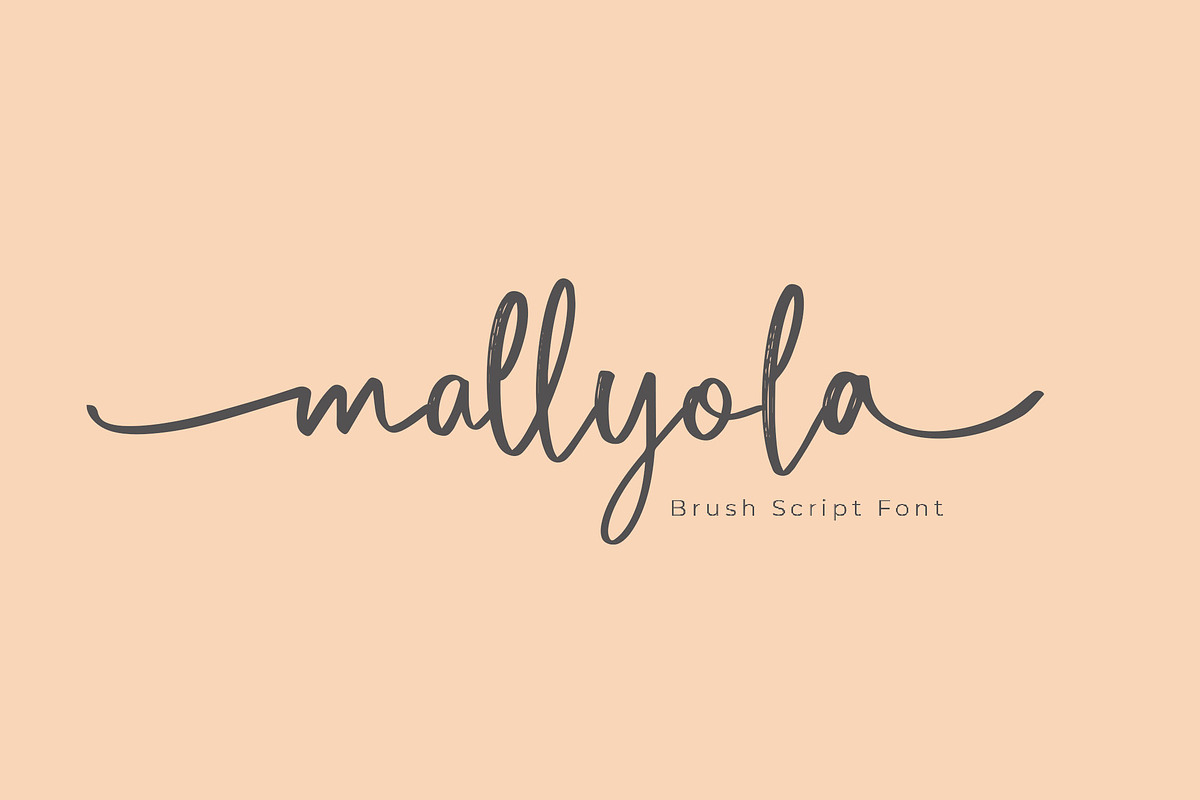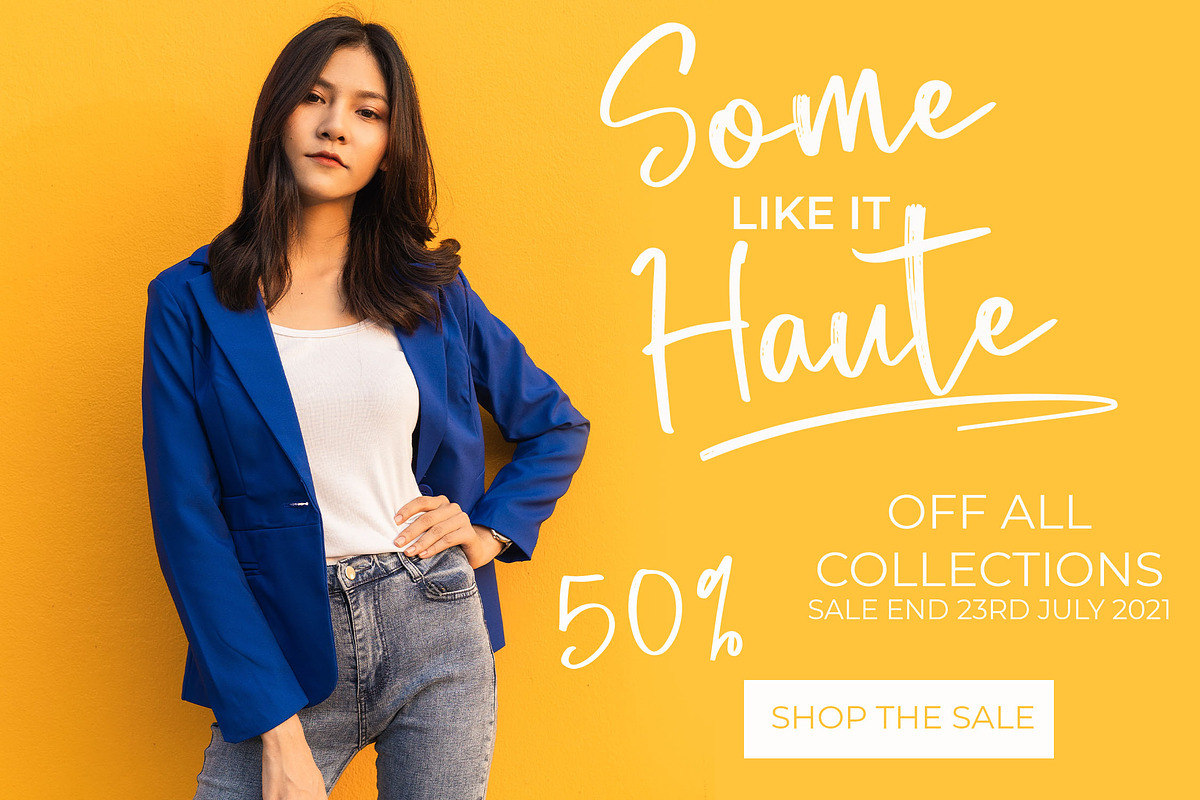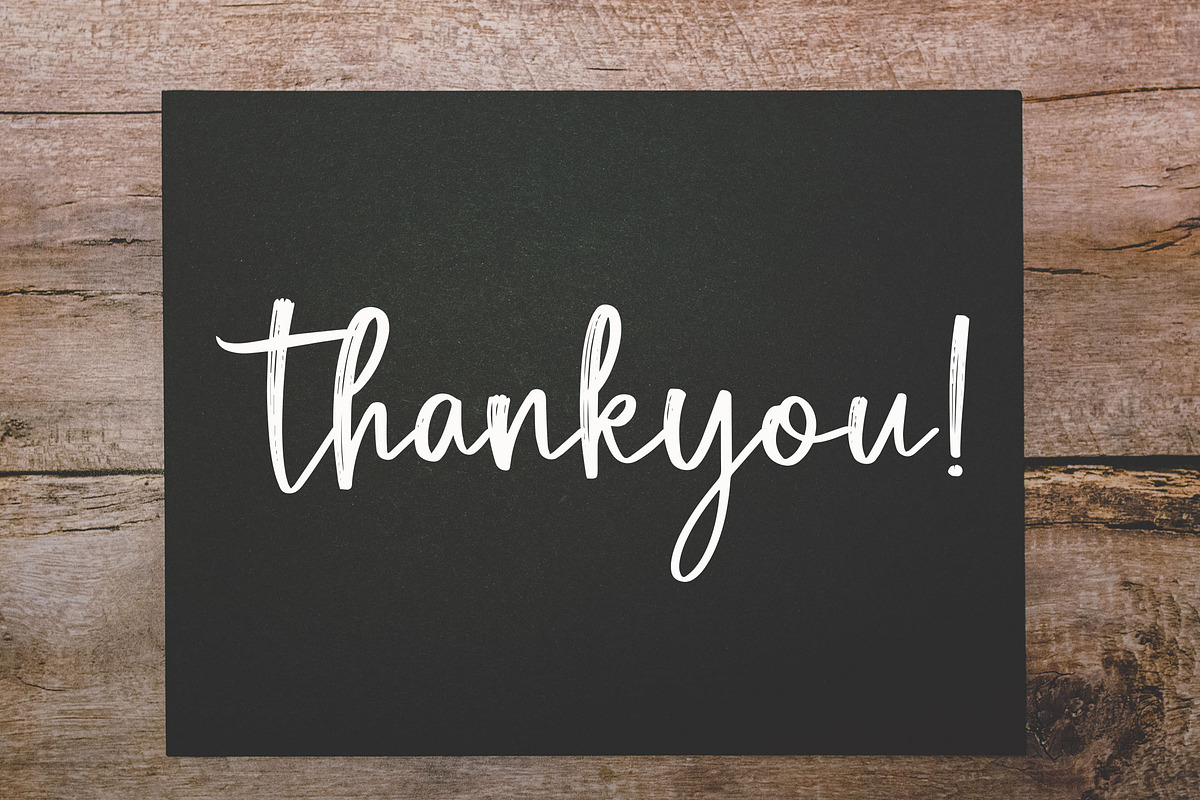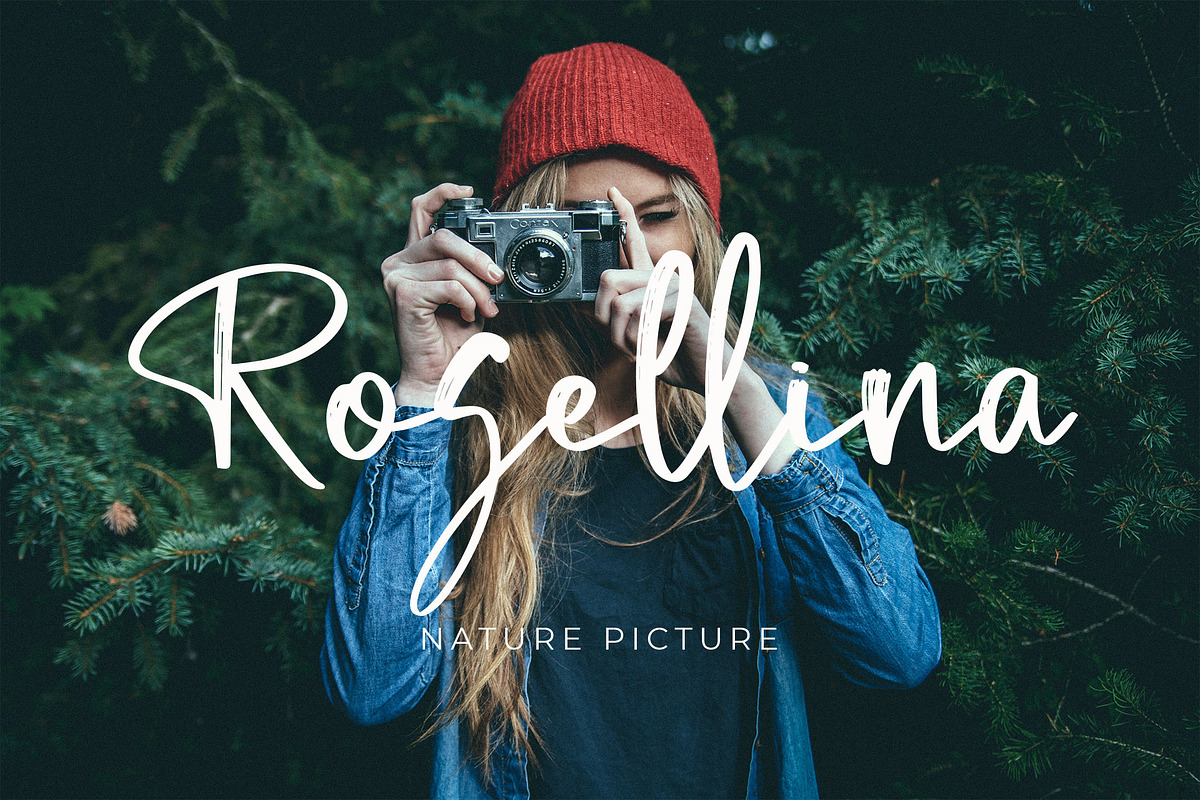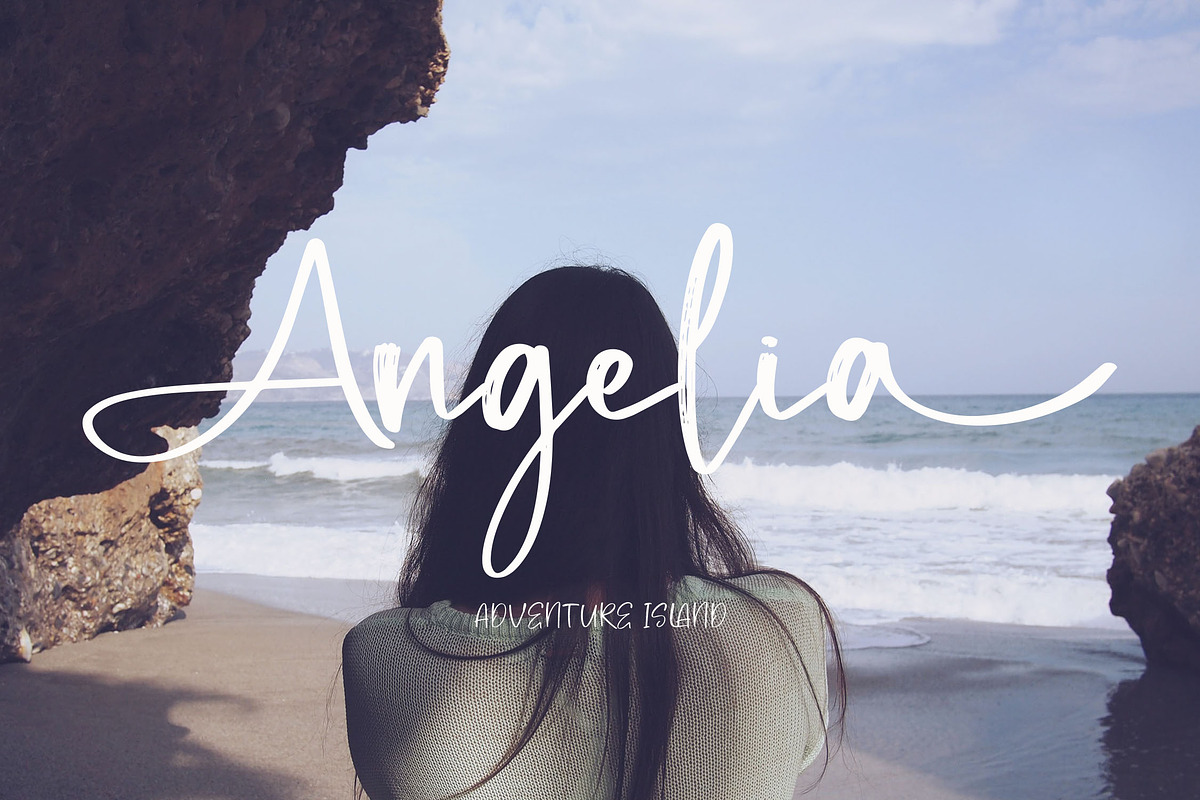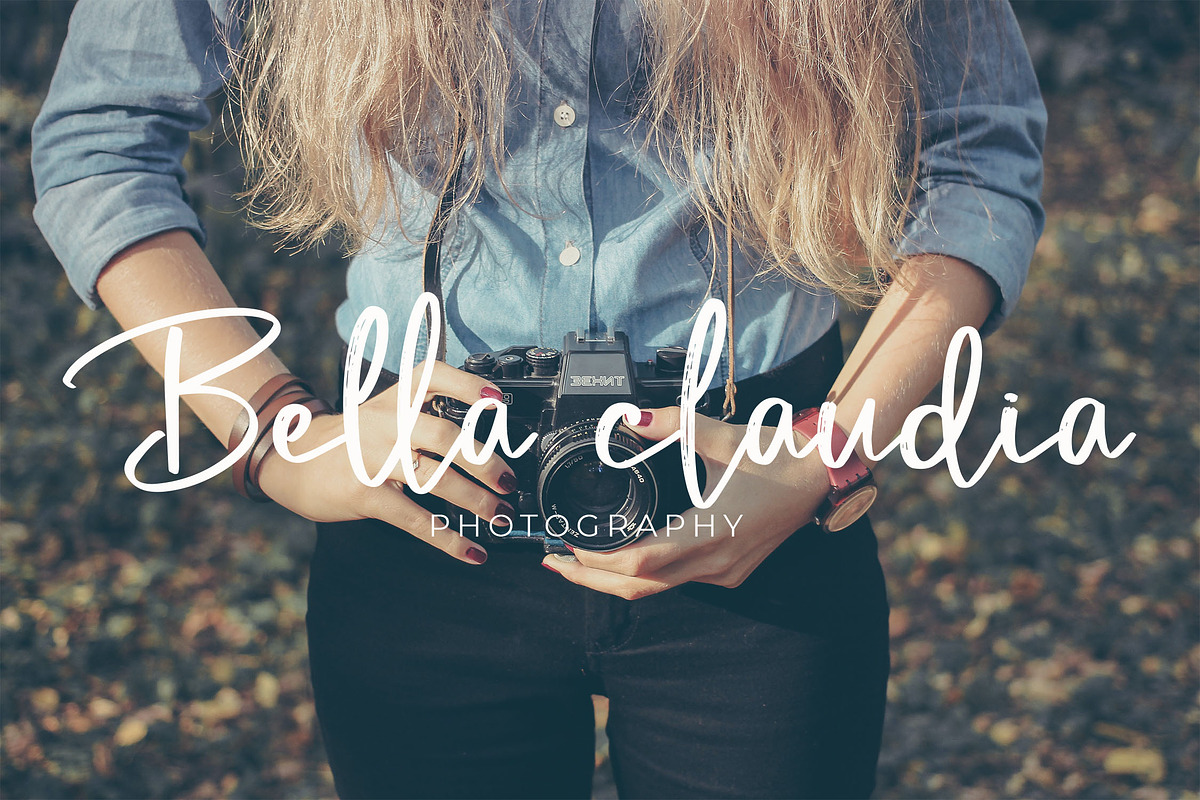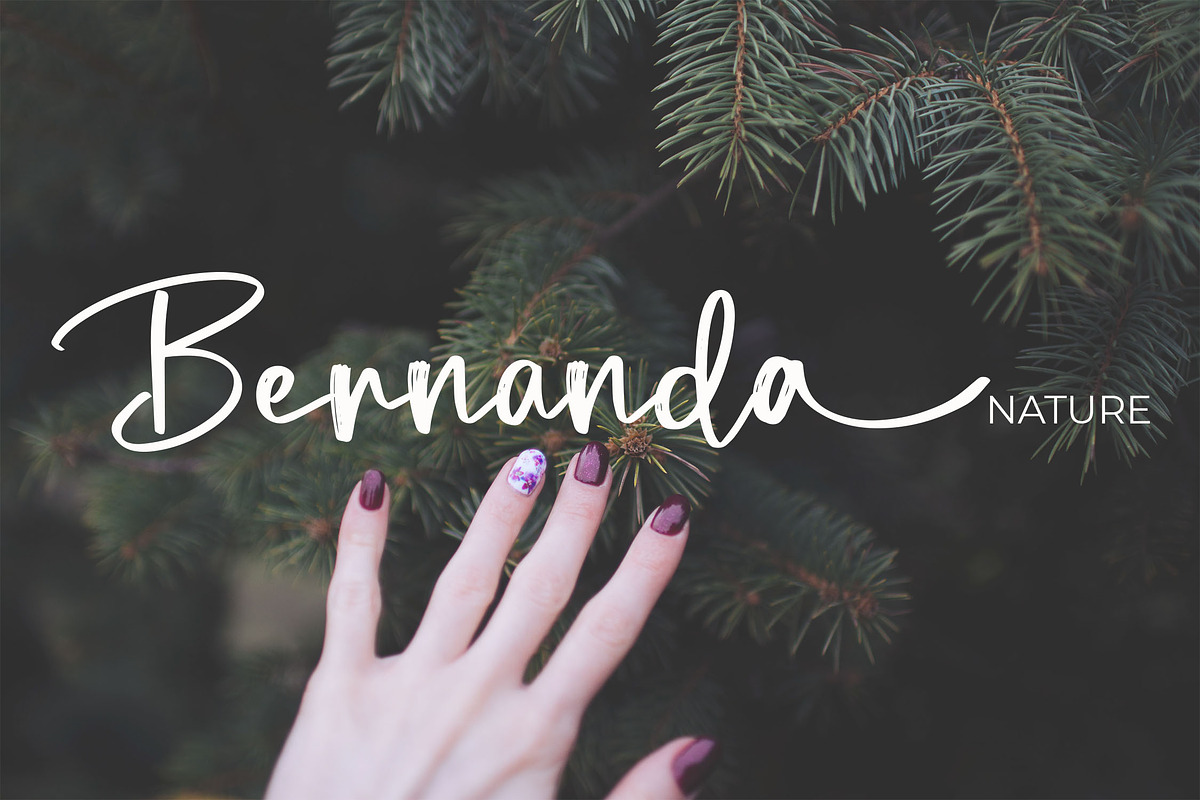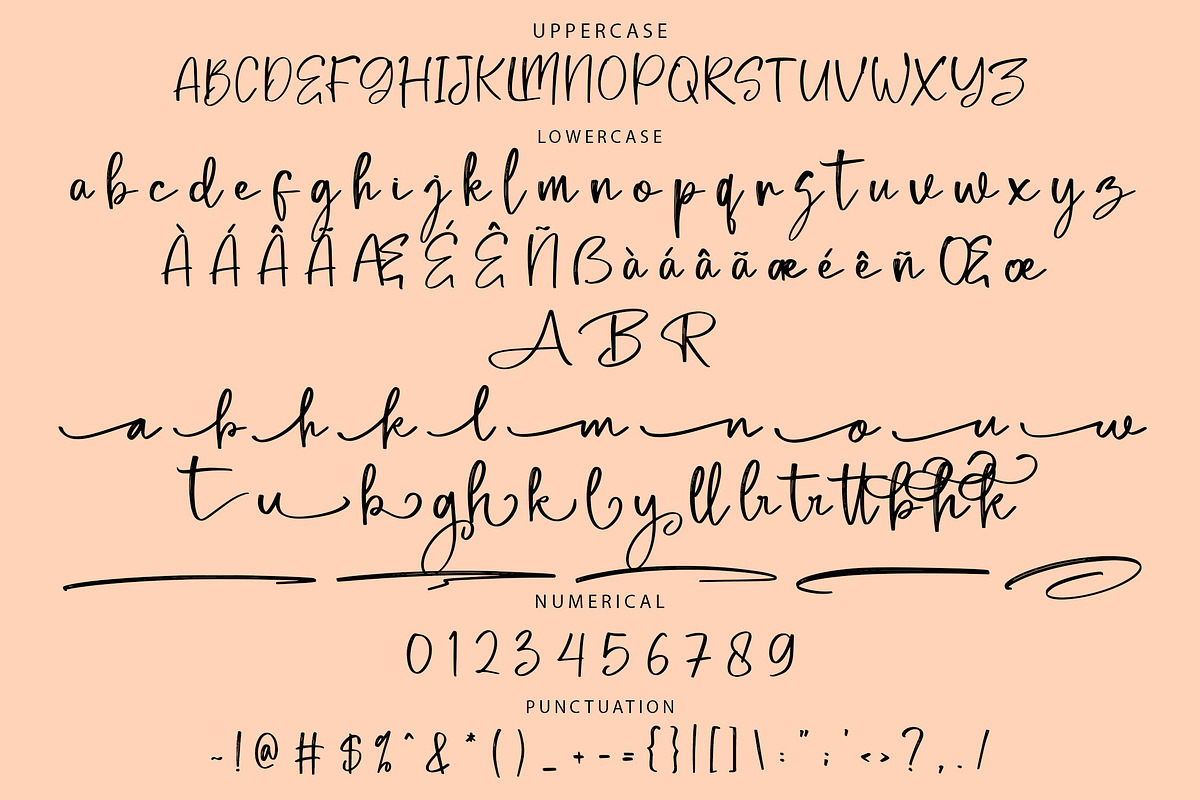
Mallyola Brush Script Font
Mallyola - Handbrush Script Font
Mallyola is a bold and expressive script font, featuring a handbrush style that brings an authentic and artistic feel to your designs. With its unique character shapes, Mallyola is perfect for adding a creative and dynamic touch to product branding, packaging, invitations, and more.
- Includes ligatures, stylistic alternates, and swashes
- Supports multiple languages for global versatility